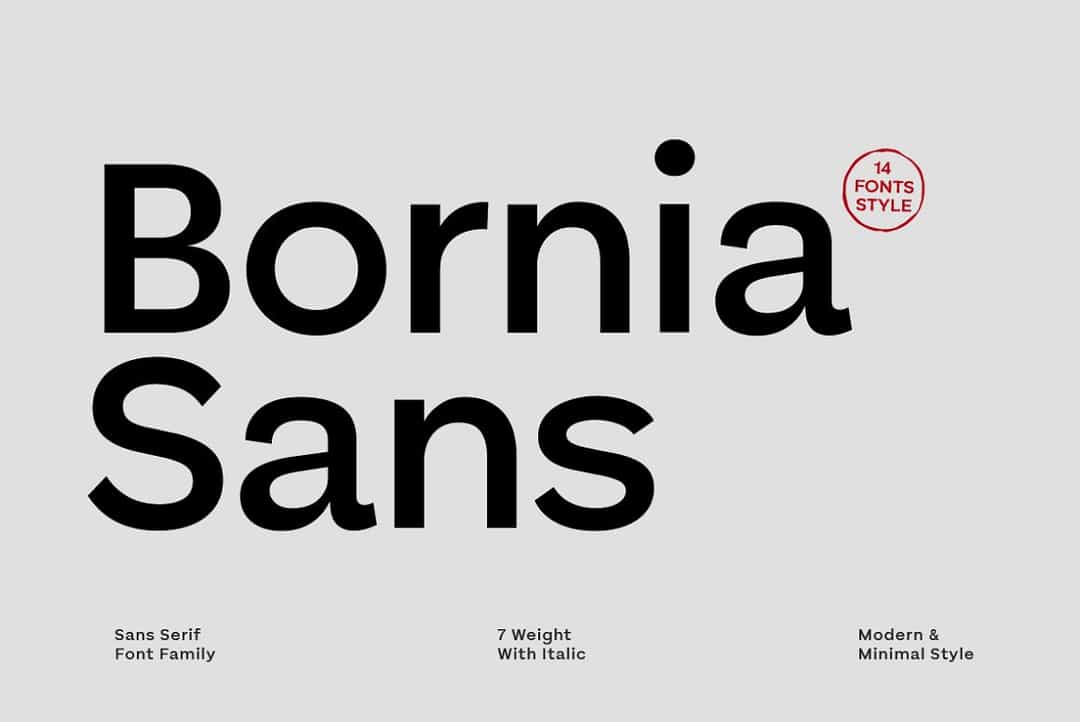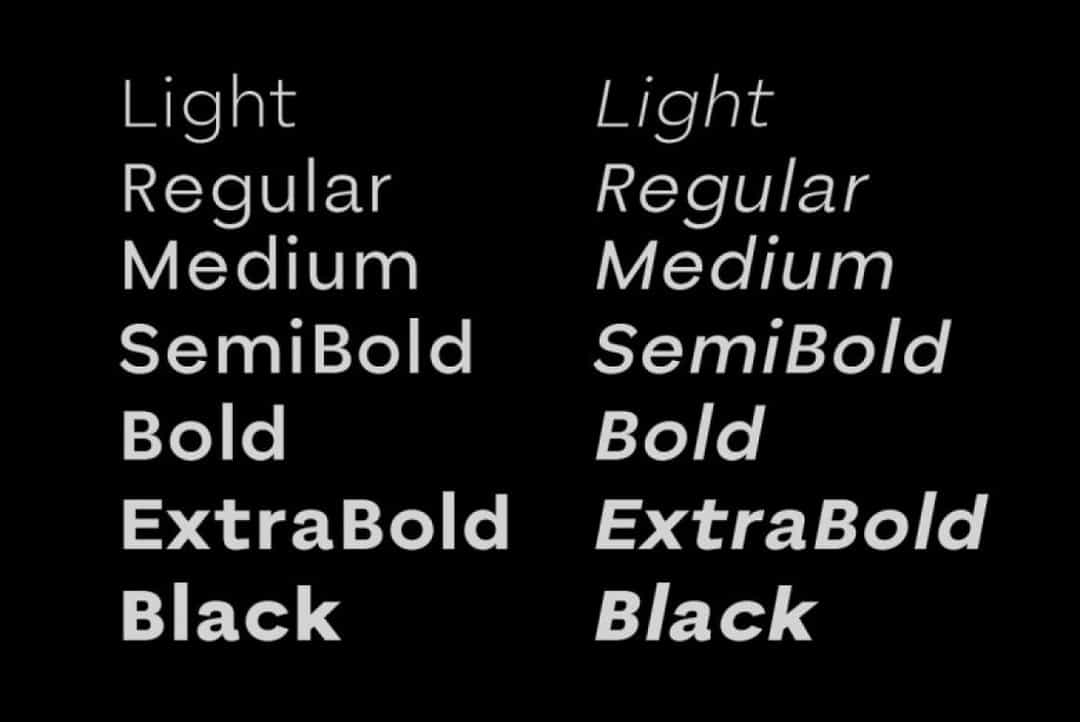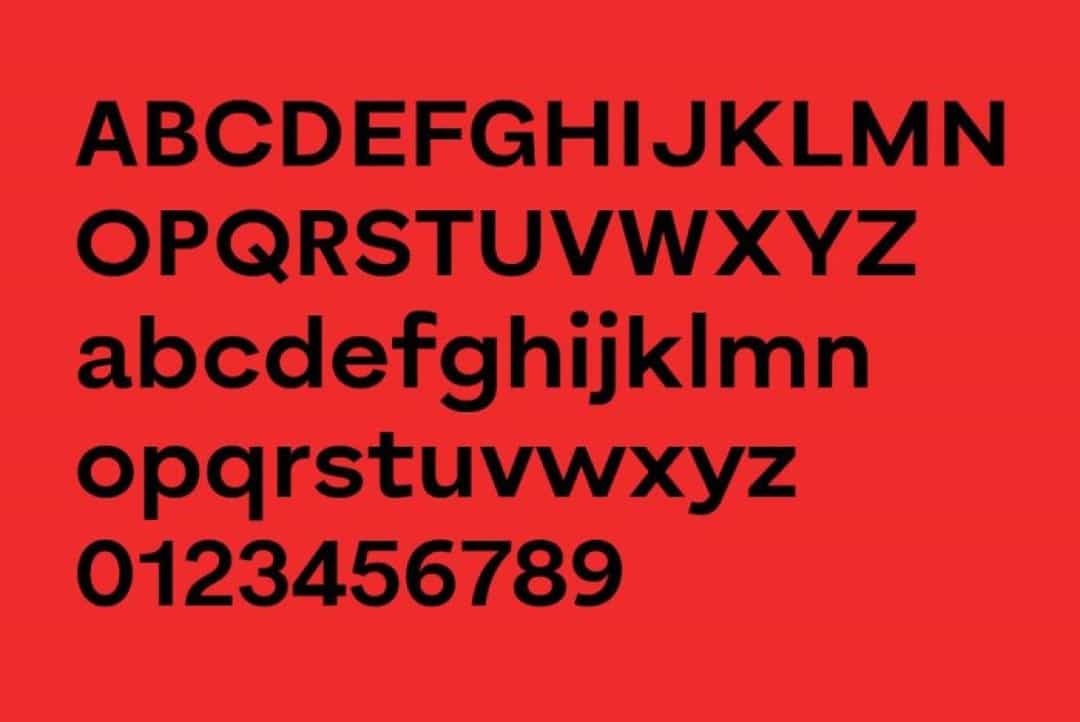
Bornia Modern Minimal Font Family is now available and features elegant yet simple modernist design – sure to leave an impactful first impression with viewers. Providing multiple light to dark versions for use, this font gives your designs extra appeal and charm!